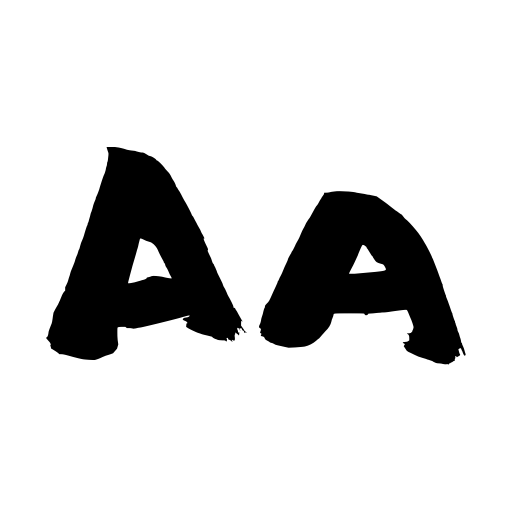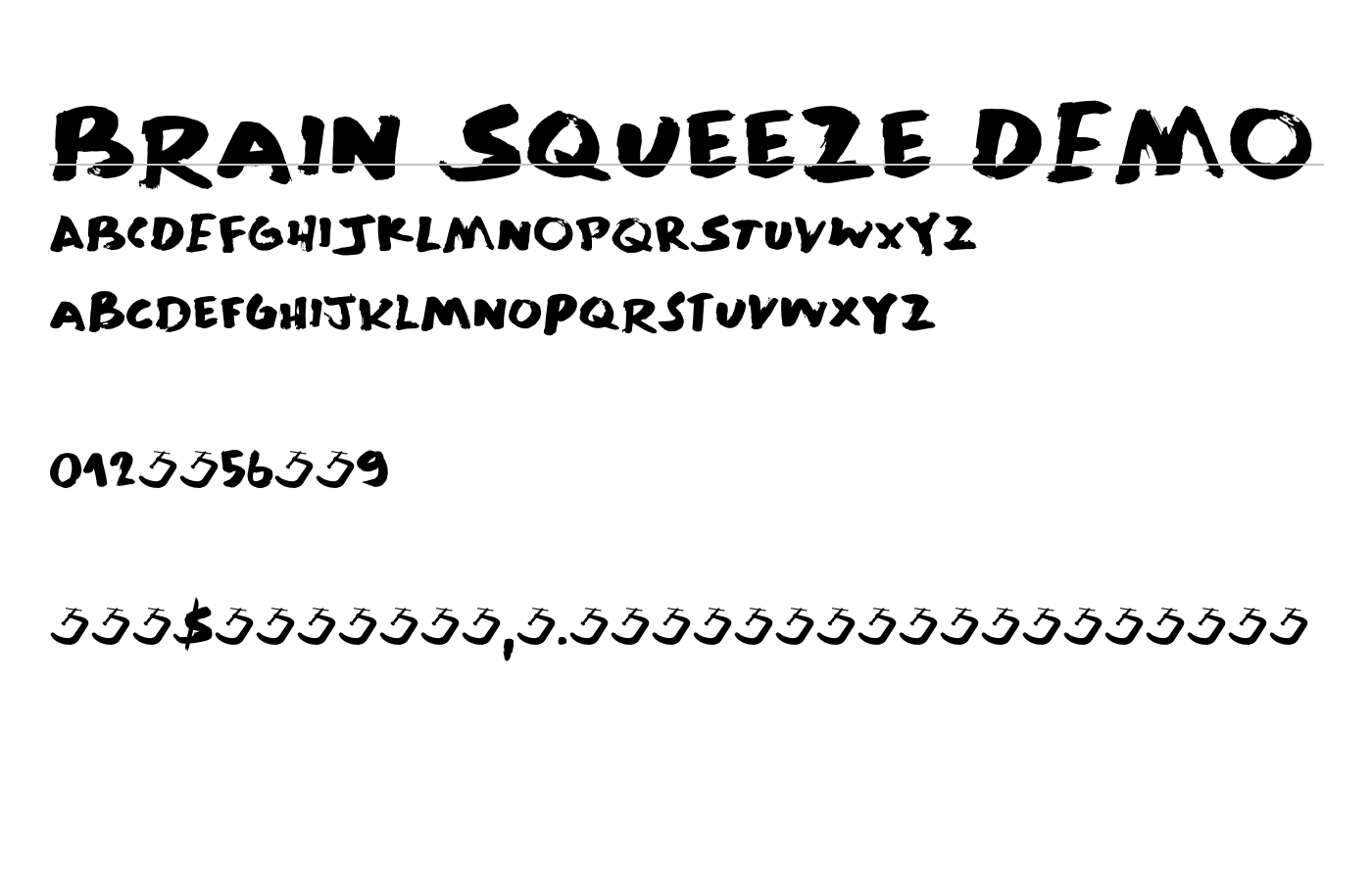
Brain Squeeze DEMO is a bold, hand-drawn brush font with a raw, textured style that adds an energetic and artistic touch to any design. Its irregular shapes and uneven strokes convey a casual, adventurous personality, making it perfect for creative projects, posters, and branding that seek a dynamic, expressive look. This font shines in headlines and logos where a unique, lively vibe is needed to capture attention.
Brain Squeeze DEMO Font
About Brain Squeeze DEMO Font